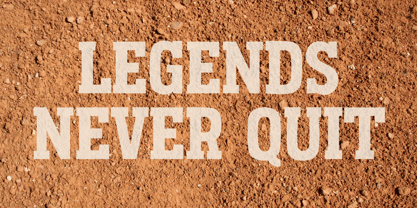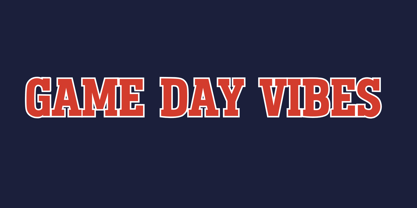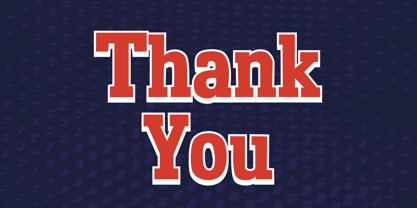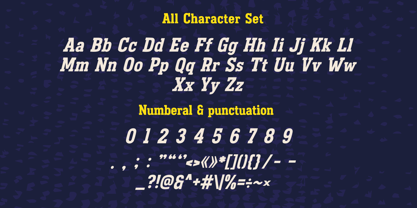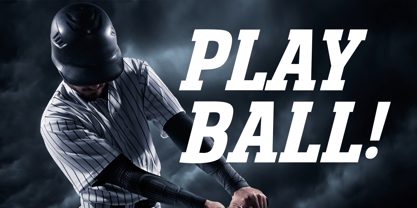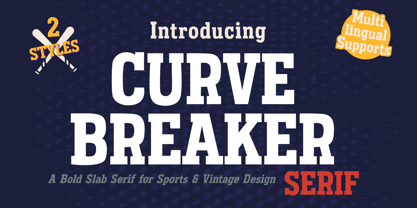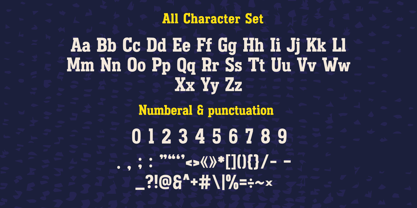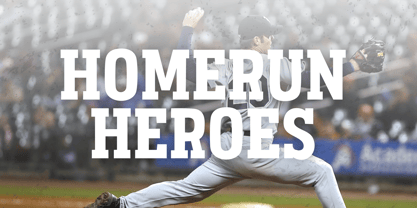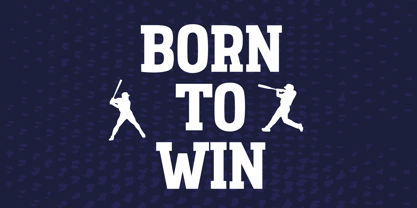
Curve Breaker
by Brown Cupple Typeface
The Curve Breaker Font Family was designed by Nattha​ Potchanad​ and published by Brown Cupple Typeface. Curve Breaker contains 2 styles and family package options. More about this family
Curve Breaker – A Bold, Vintage-Inspired Sports Typeface
Step up to the plate with Homerun Serif – a bold and striking slab serif typeface inspired by the timeless spirit of baseball and classic athletic design. Crafted with thick, confident strokes and sharp edges, Homerun Serif brings a powerful presence to any design — whether it’s a team logo, event poster, sportswear branding, or vintage-style editorial.
This font is not just about impact — it’s about character. With a full set of uppercase and lowercase letters, numbers, punctuation, and essential symbols, Homerun Serif is made for both print and digital use. Alternate characters add extra flair, allowing you to create truly dynamic headlines and standout branding.
Designers: Nattha​ Potchanad​
Foundry: Brown Cupple Typeface